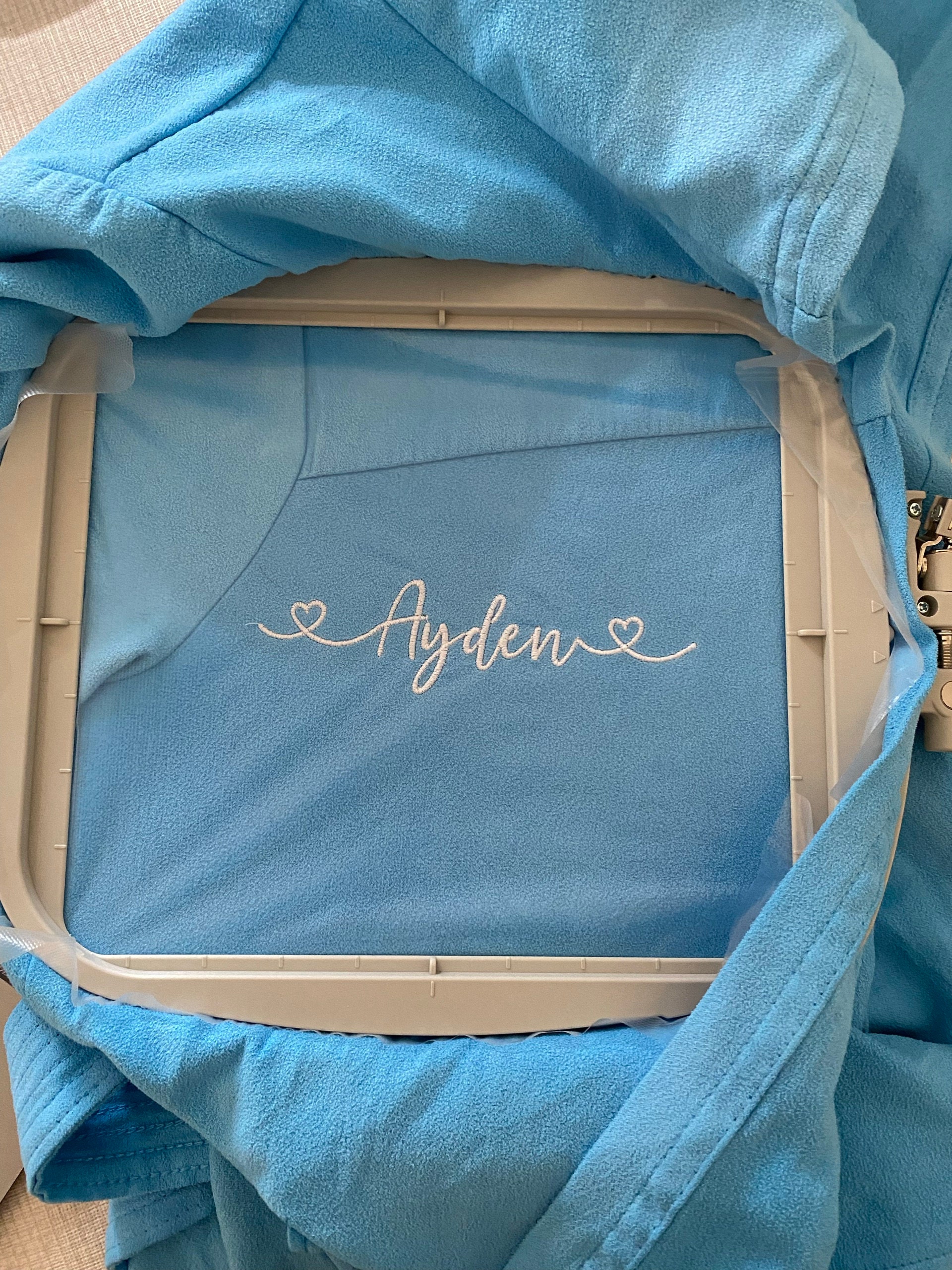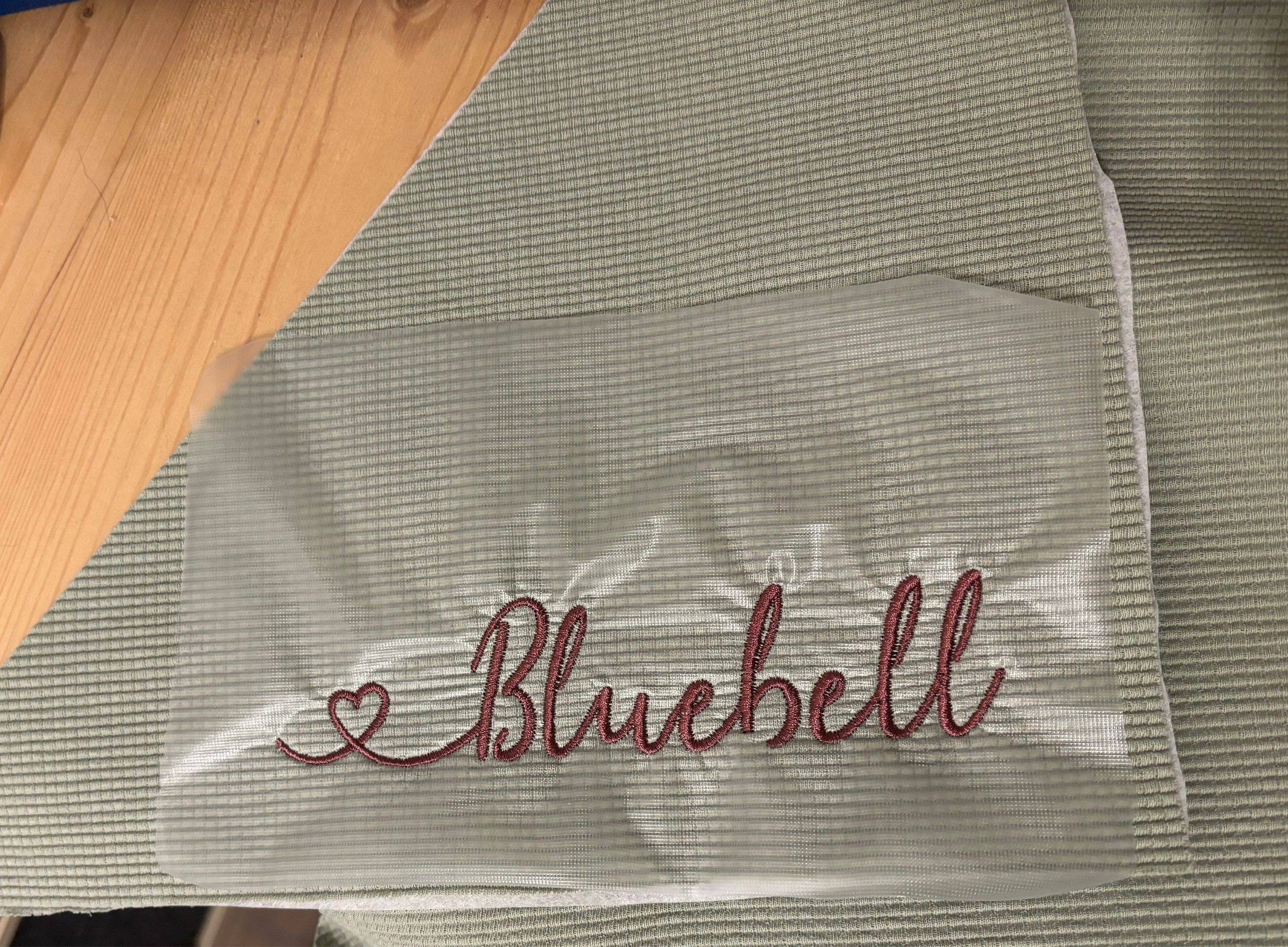
• Included: Uppercase letters, Lowercase letters, Numbers, Alternate letters
This embroidery font bundle includes 10 different lettering styles, from soft flowing scripts to more decorative letters and swashes. It is a lovely choice for home embroiderers making baby gifts, wedding projects, birthday gifts, and family keepsakes such as shirts, towels, tote bags, and napkins.